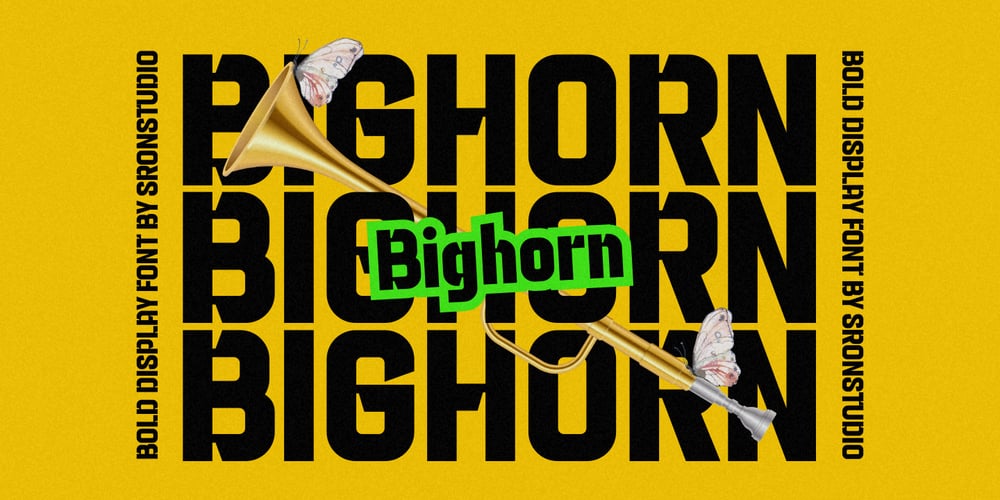
Bighorn
Bighorn font
Bighorn Font Family was designed by Muhamad Yusron Billah and published by Sronstudio. Bighorn contains 2 styles and family package options. Introducing “Bighorn,” a modern bold font that exudes strength and confidence. With its powerful and robust design, “Bighorn” is perfect for making a bold statement in headlines, logos, posters, and branding projects. Its strong lines and commanding presence will ensure your message stands out with authority and style. Make an impact with “Bighorn.”Included:- 2 Style Regular & Italic- Numeral & Punctuation- PUA Encoded- Multilingual support- Simple Installation- Work both on Mac and WindowsThank you very much 🙂